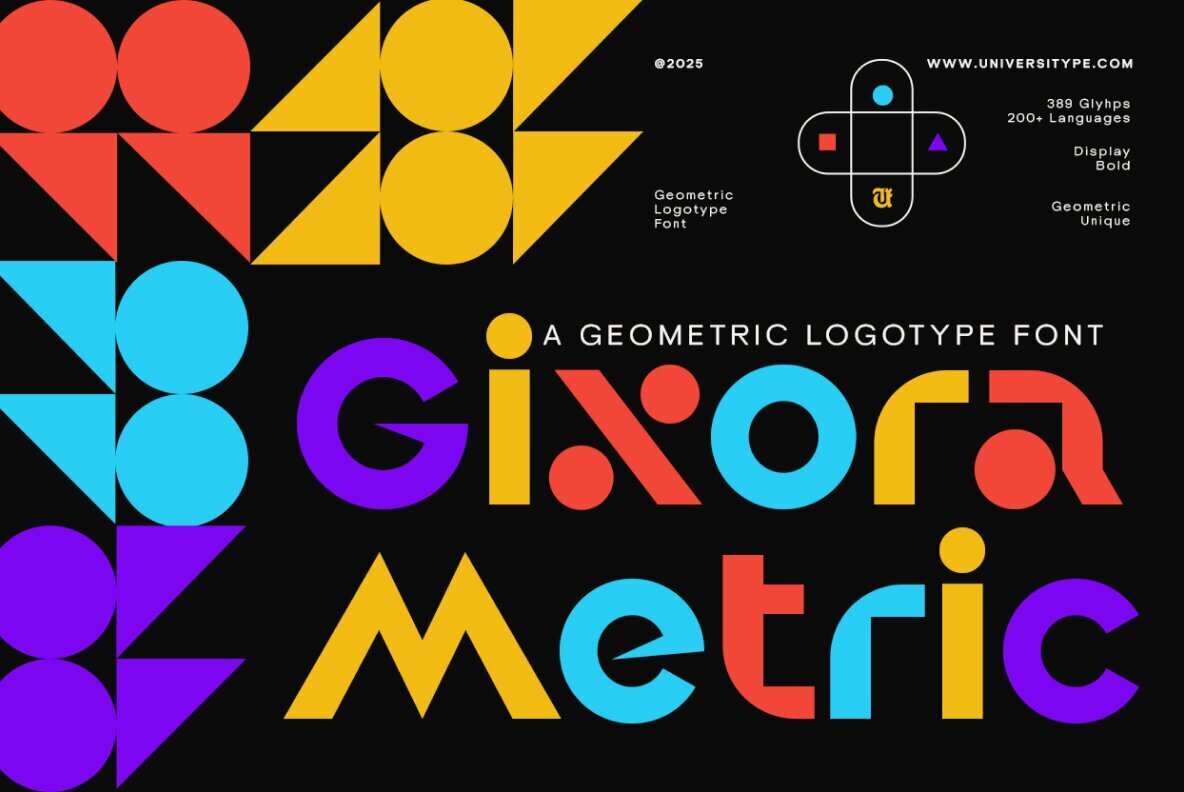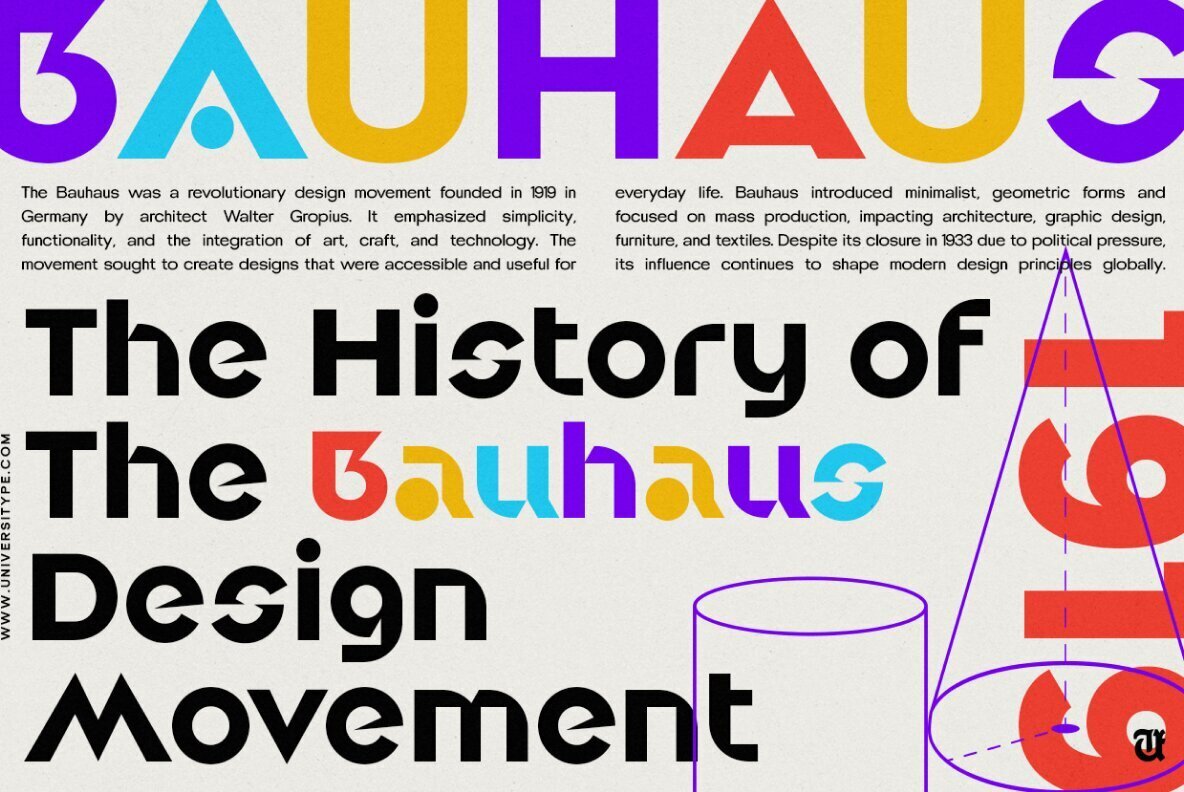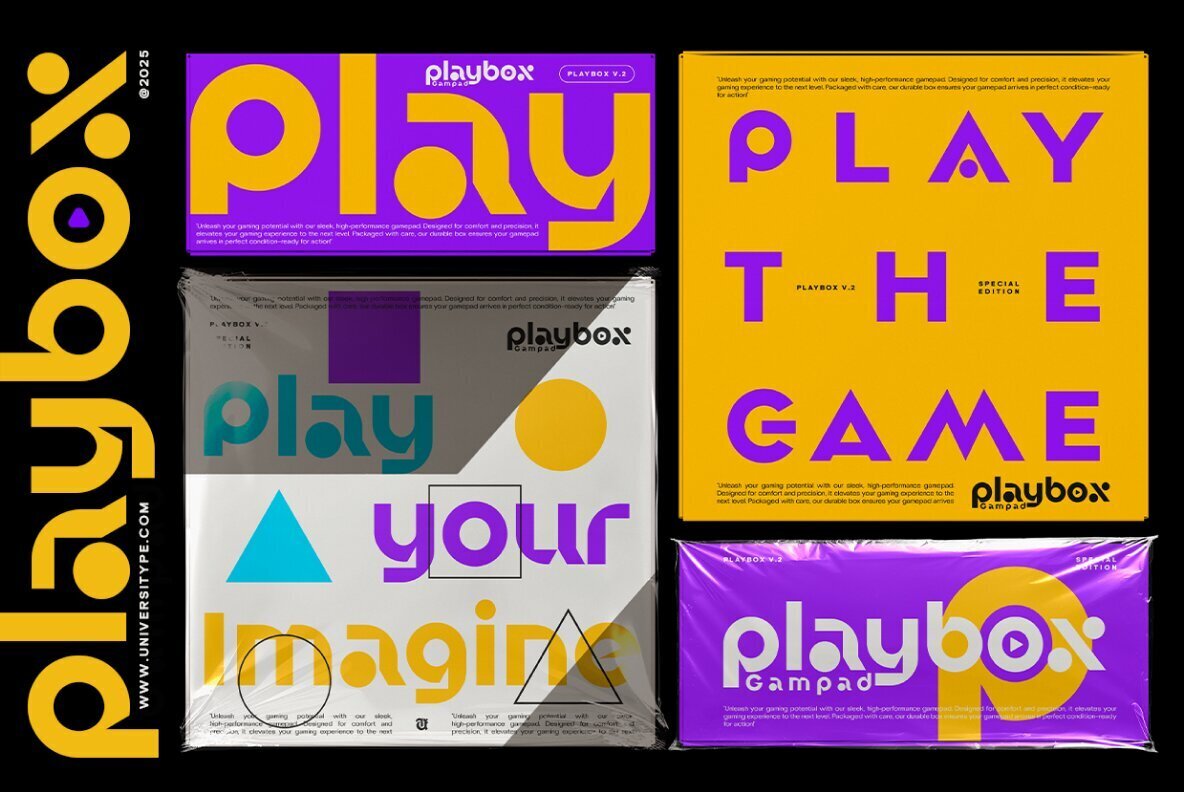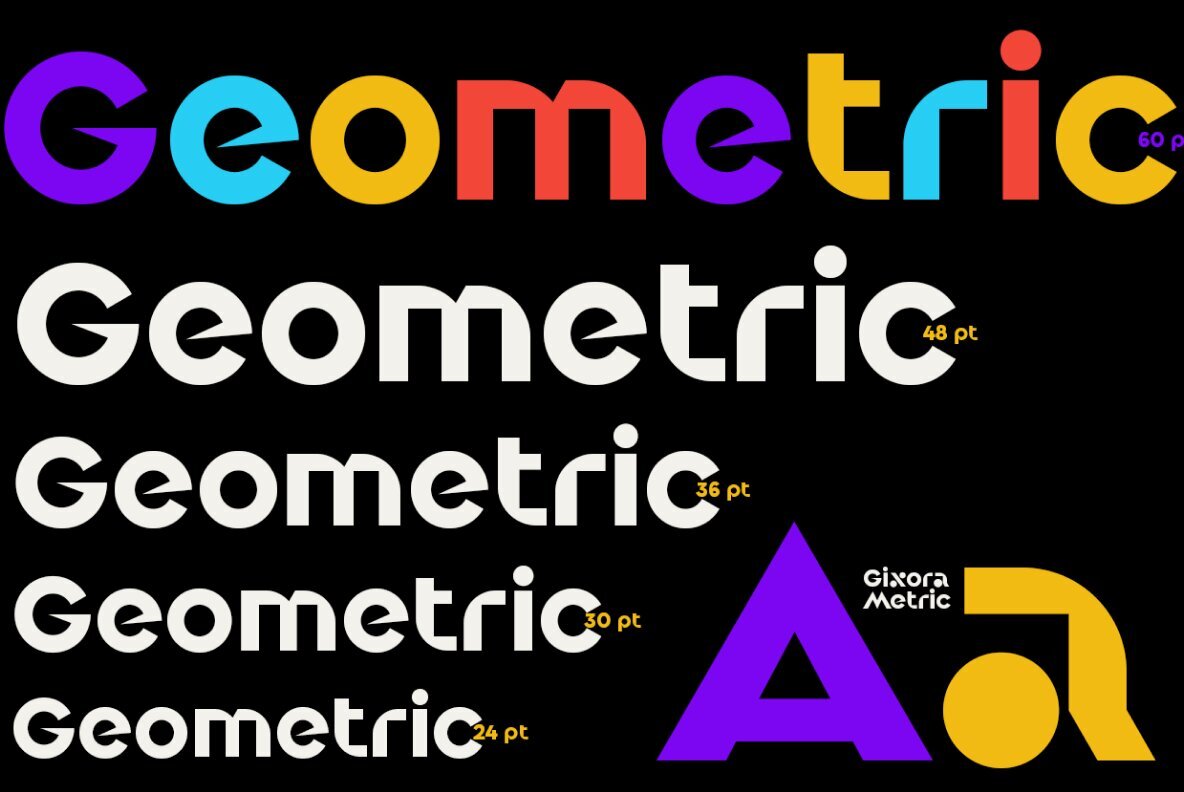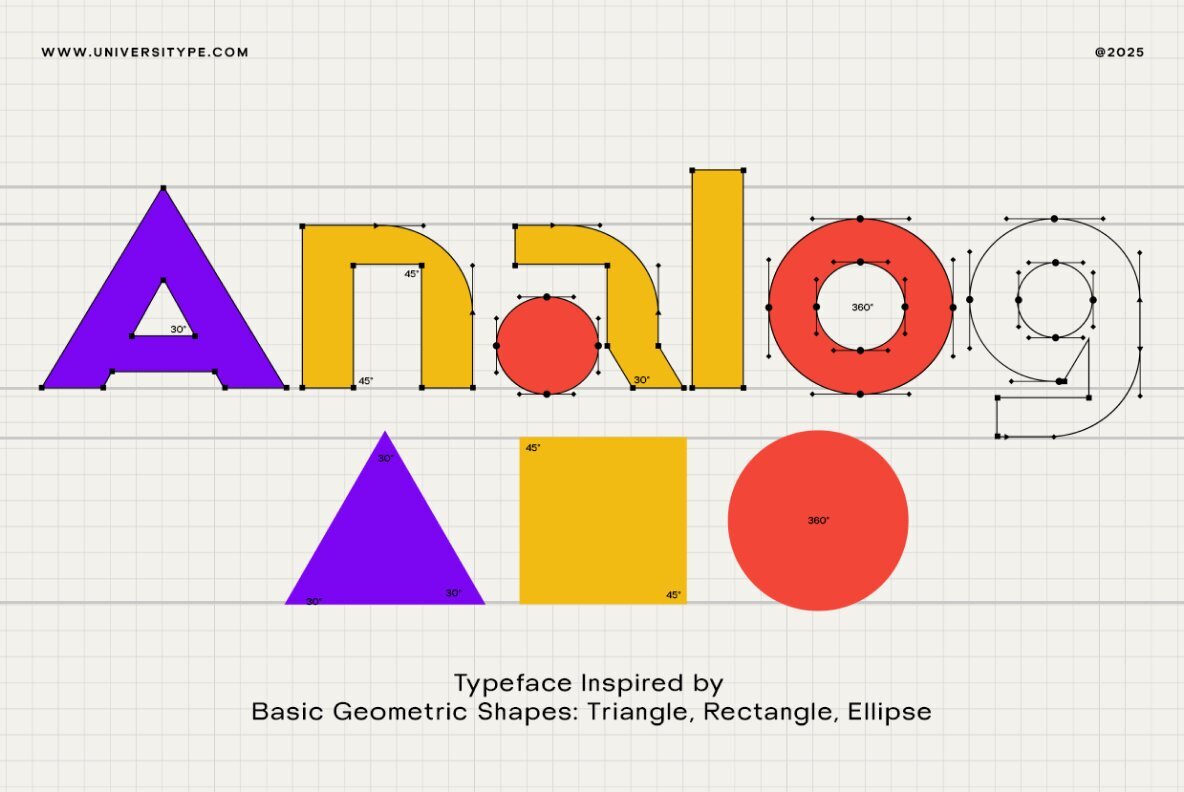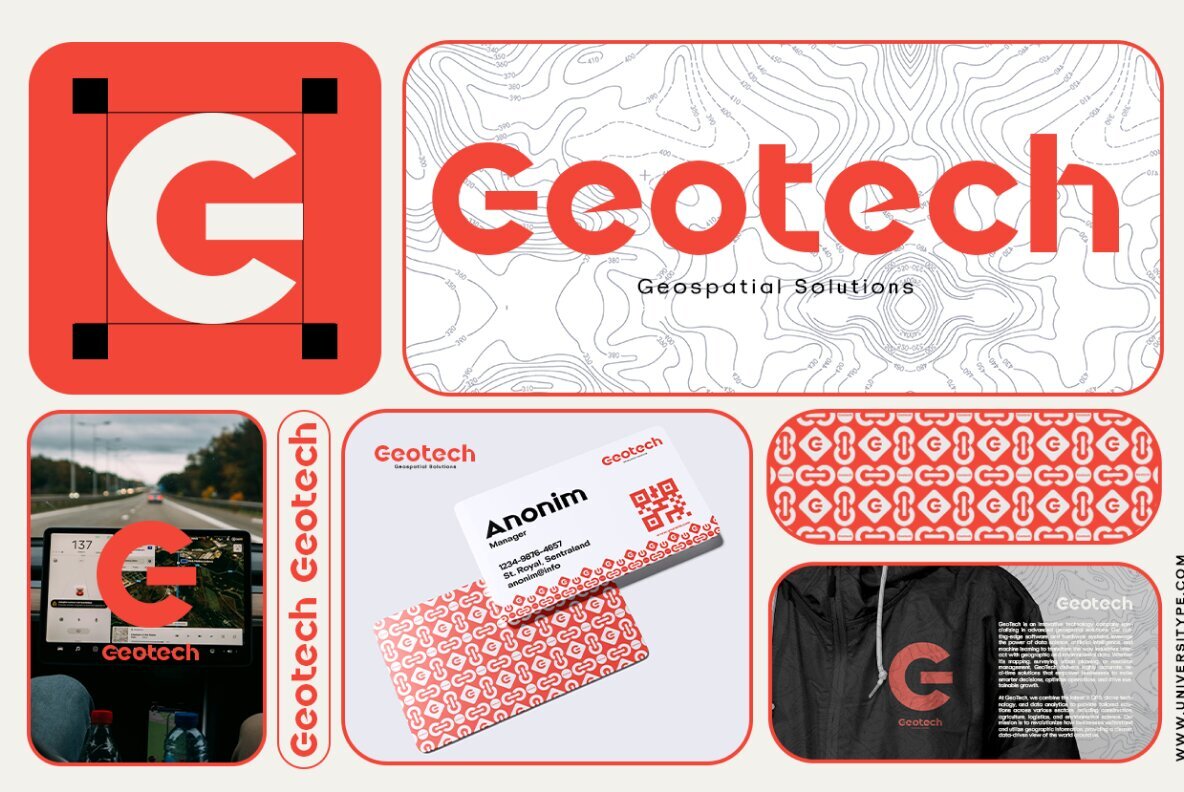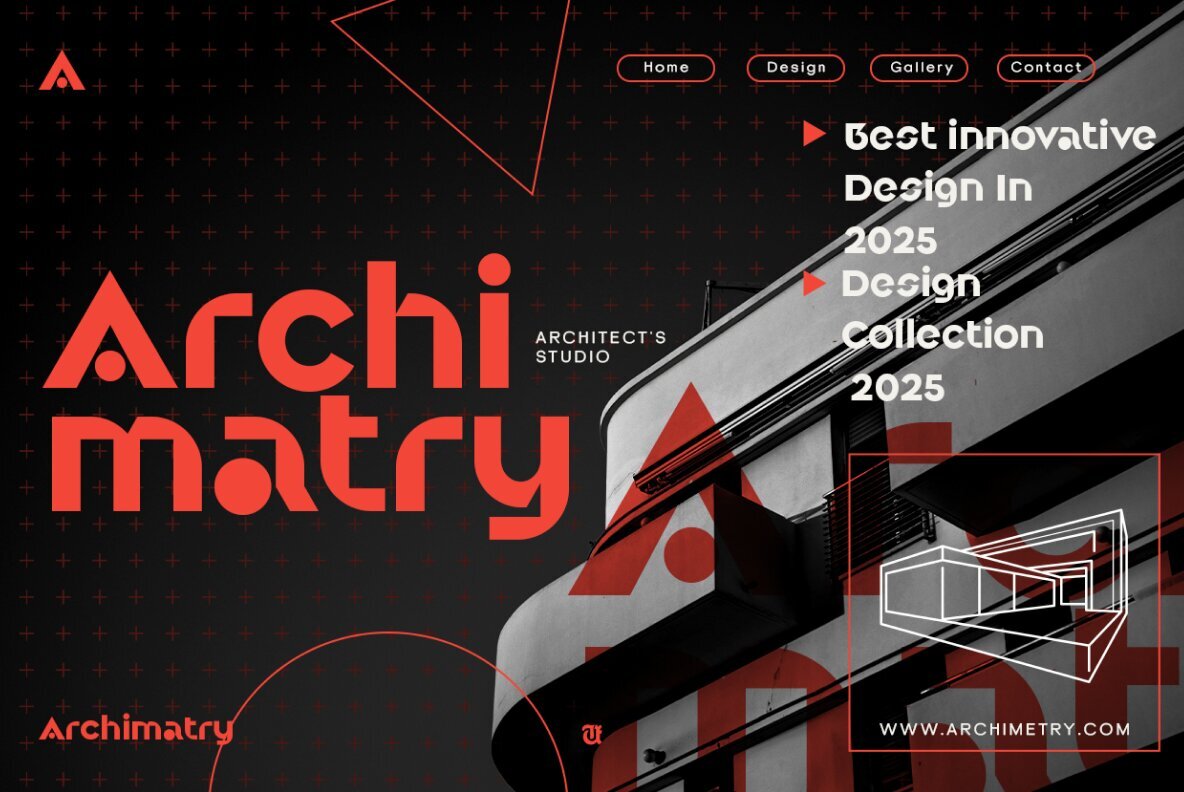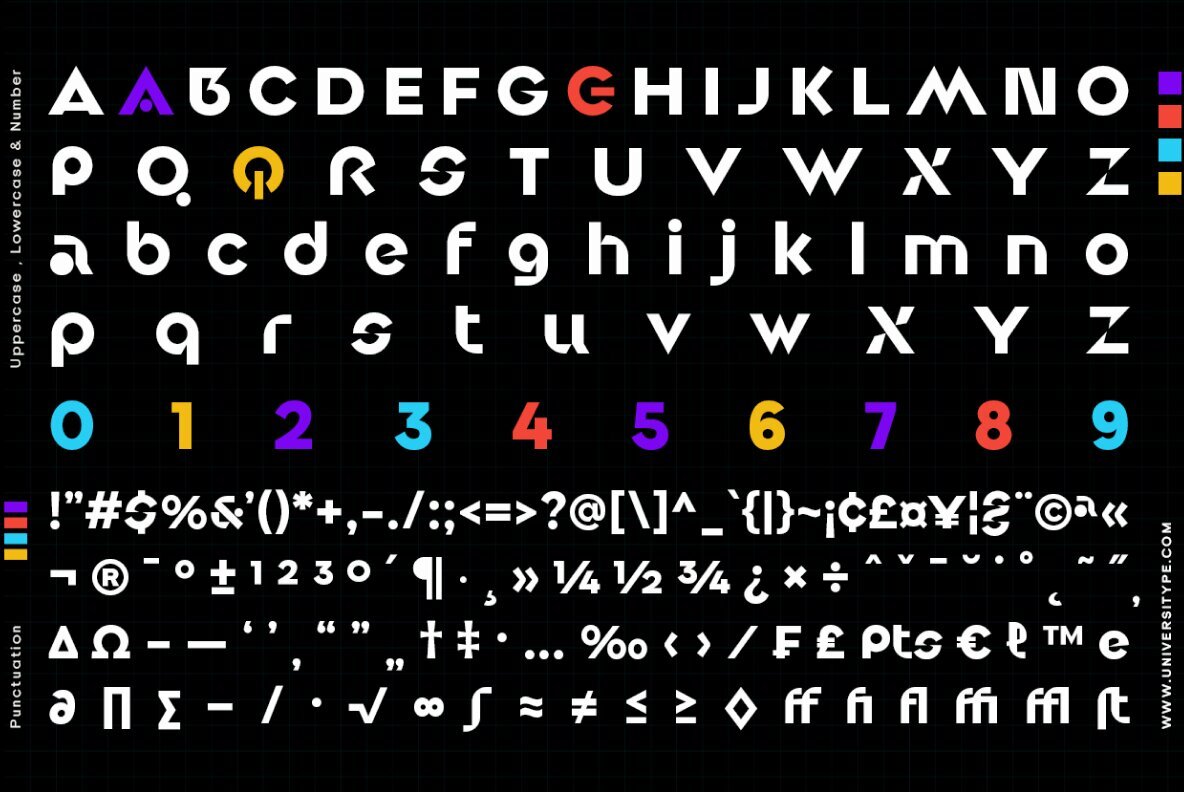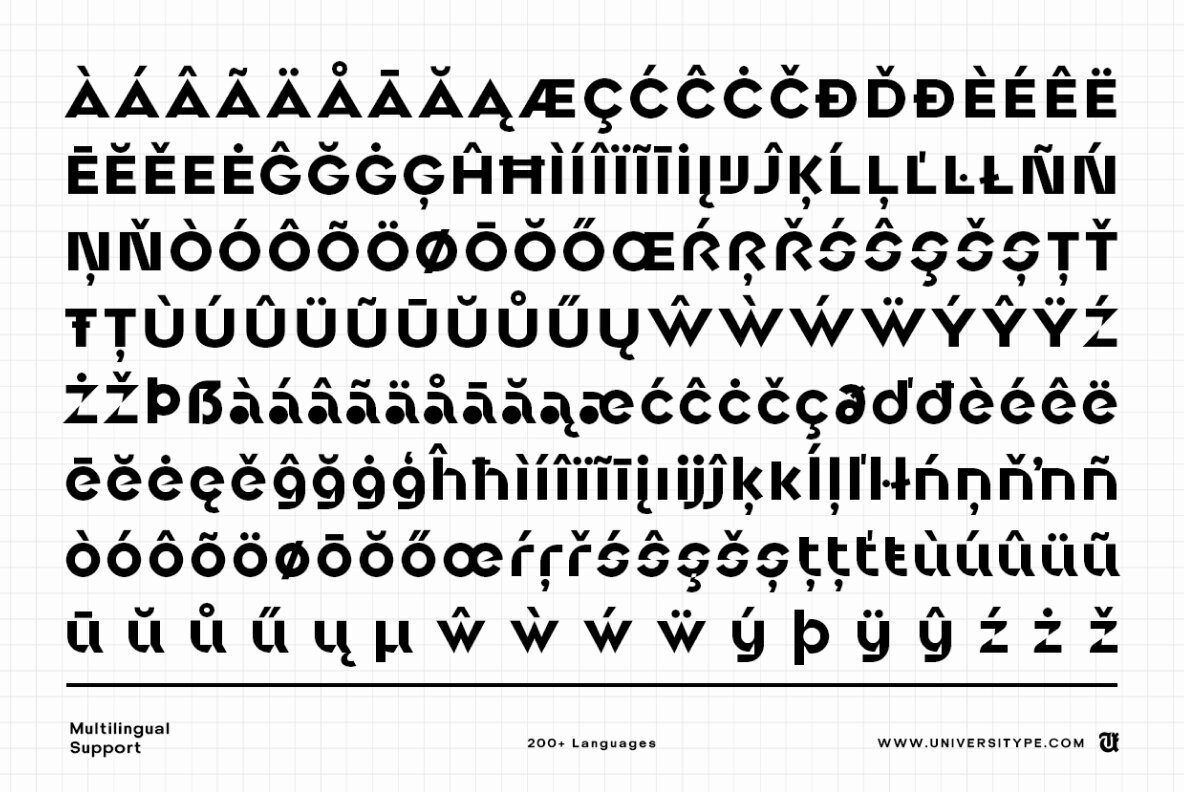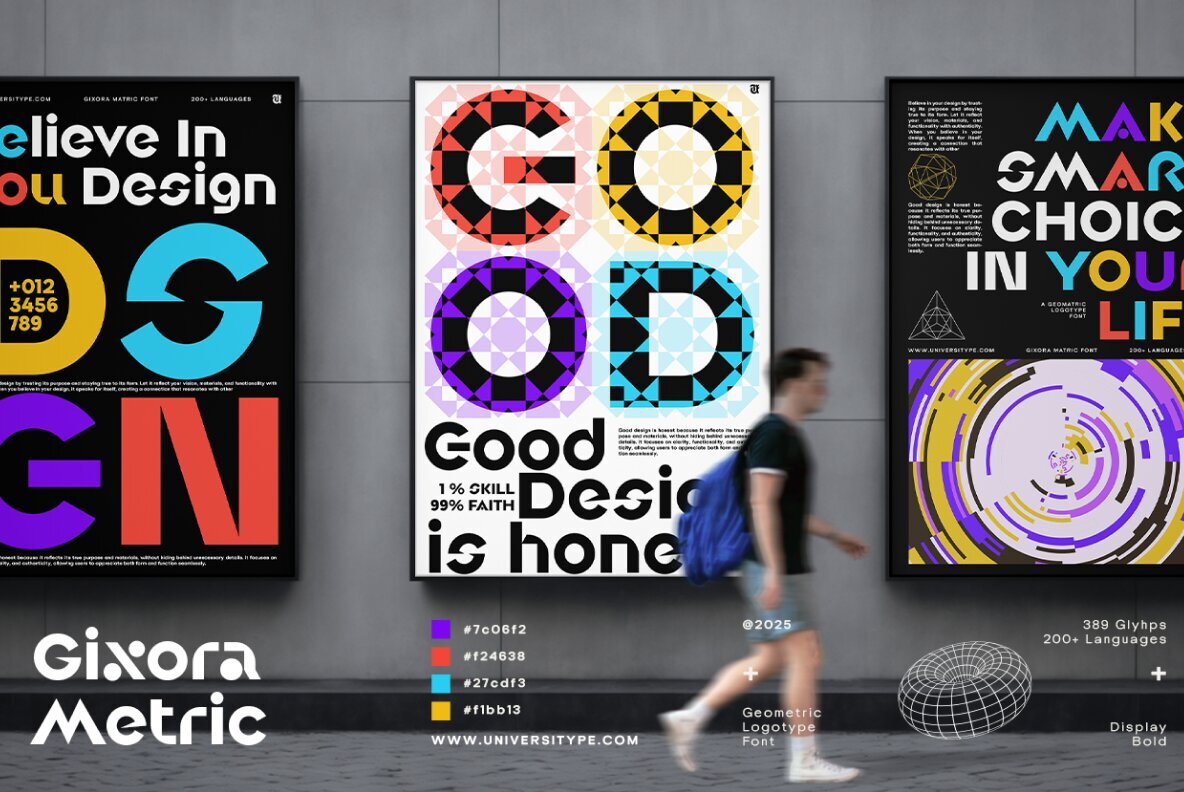
Introducing Gixora Metric, a revolutionary geometric logotype font that brings a fresh and modern twist to your design projects. Crafted with precision and creativity, UT Gixora Metric is perfect for brands looking to make a bold statement and stand out in a crowded market. UT Gixora Metric embodies a geometric logotype style with a bold and playful approach, drawing inspiration from the modernist and Bauhaus typography movements. These influential design schools emphasized the use of basic shapes like circles, triangles, and rectangles to define letterforms, creating a visually striking and structurally sound typeface. The font captures the essence of these movements, combining geometric precision with a sense of whimsy and creativity. UT Gixora Metric’s unique design makes it a versatile choice for various design applications, including:UT Gixora Metric : The Ultimate Geometric Logotype Font
Key Features:
Why Choose UT Gixora Metric?
Inspiration Behind the Design:
Usage Suggestions: